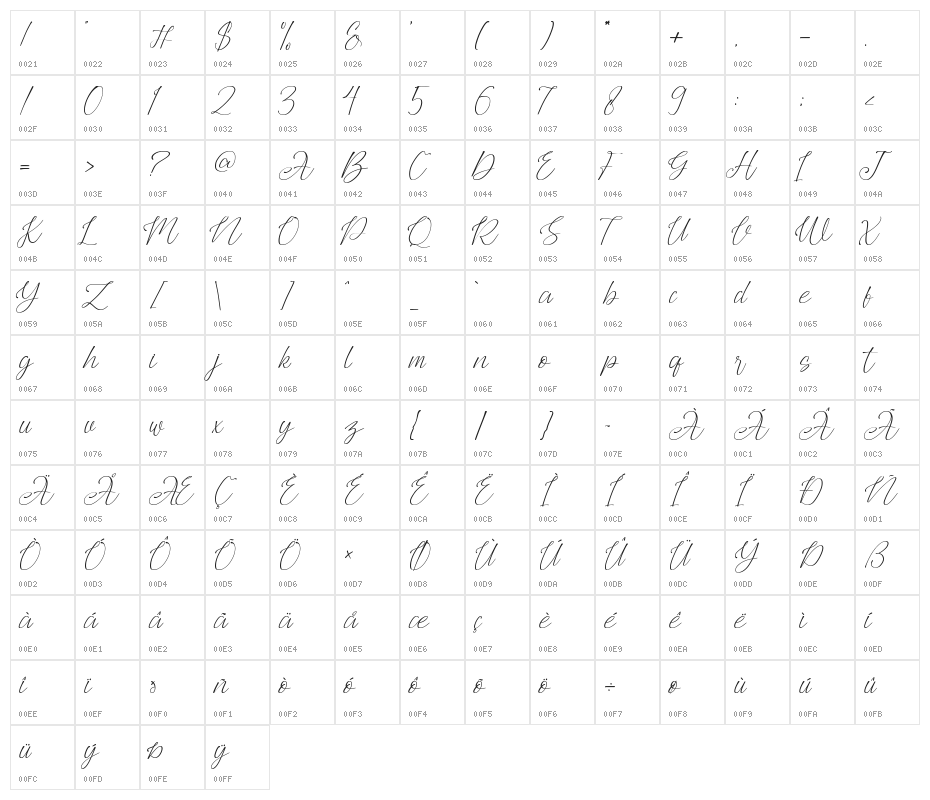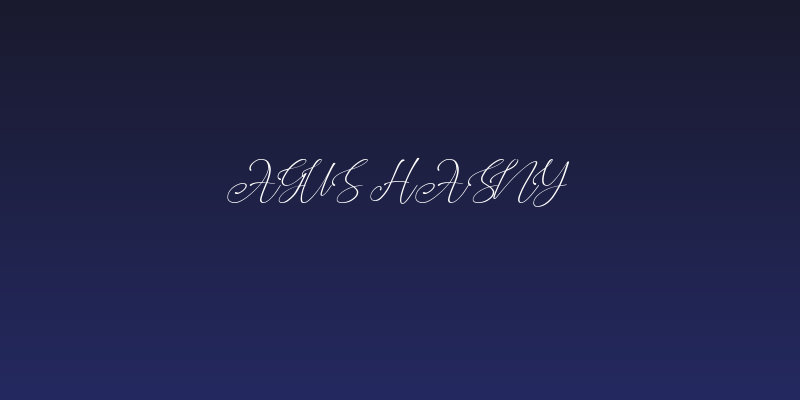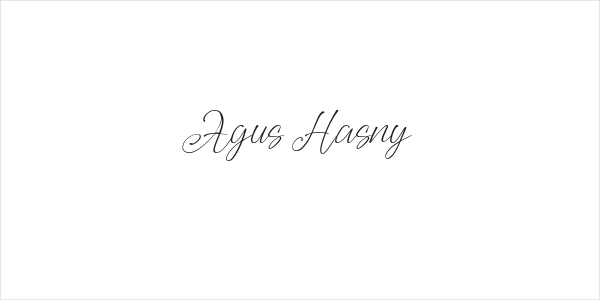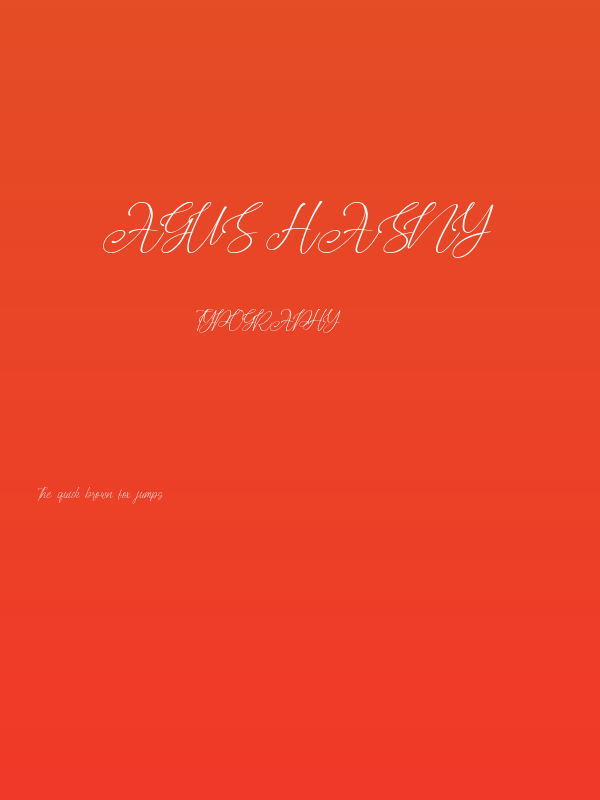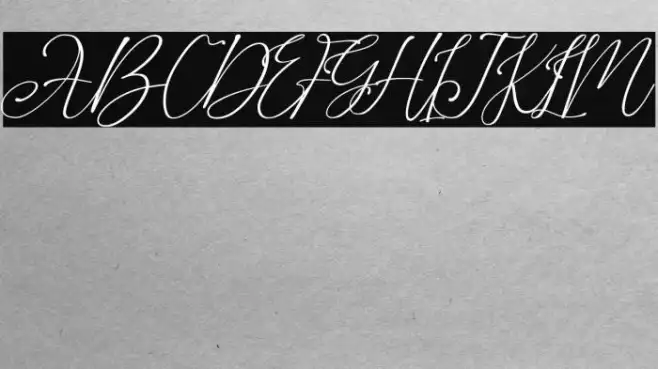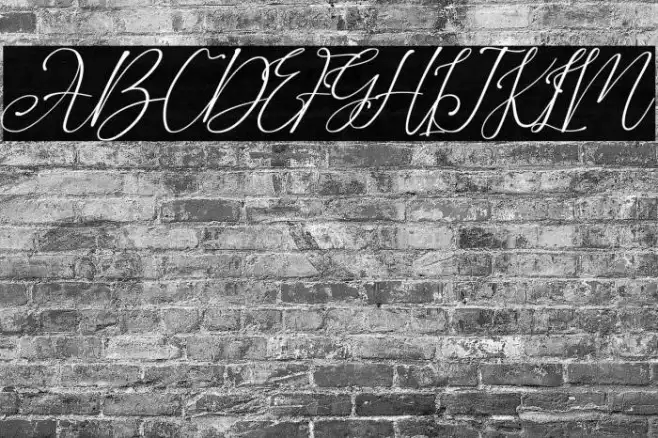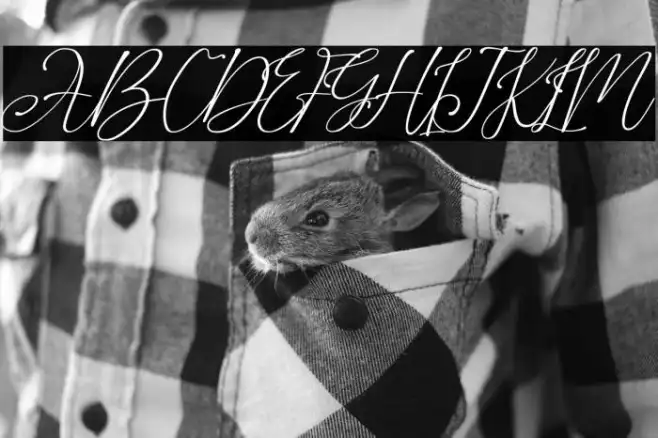
Agus Hasny Font
Agus Hasny Description
This elegant script font features flowing, interconnected letters that exude a sense of sophistication and grace. The uppercase characters are ornate, with sweeping curves and flourishes that add a touch of drama. The lowercase letters maintain a consistent slant, enhancing the fluidity of the text. Numbers and special characters are designed with the same attention to detail, ensuring a cohesive look across all elements. The font's delicate lines and high contrast between thick and thin strokes make it ideal for creating a refined and stylish appearance.
| Proposed Projects | Ideal for wedding invitations, elegant branding, greeting cards, and high-end product packaging. |